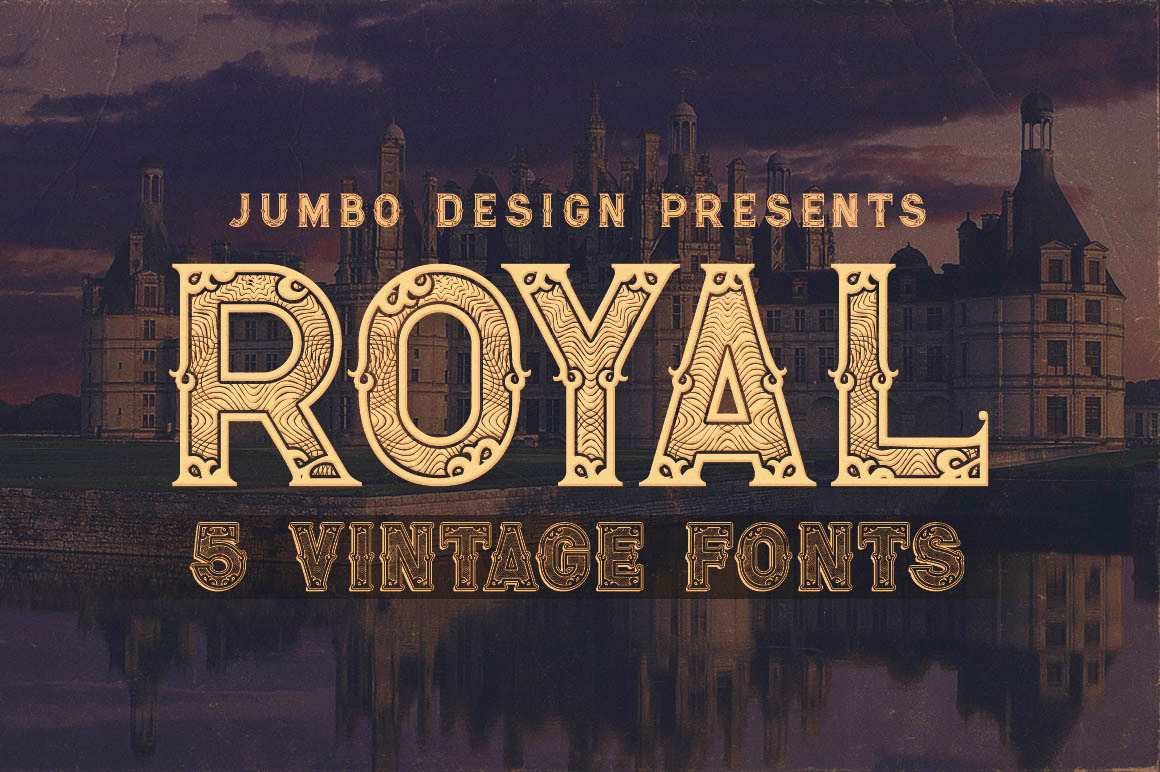
Royal - Vintage Style Font
Unique retro or vintage style decorative custom serif font with 5 styles: Regular, Guilloche, Guilloche1, Guilloche Shadow & Guilloche1 Shadow